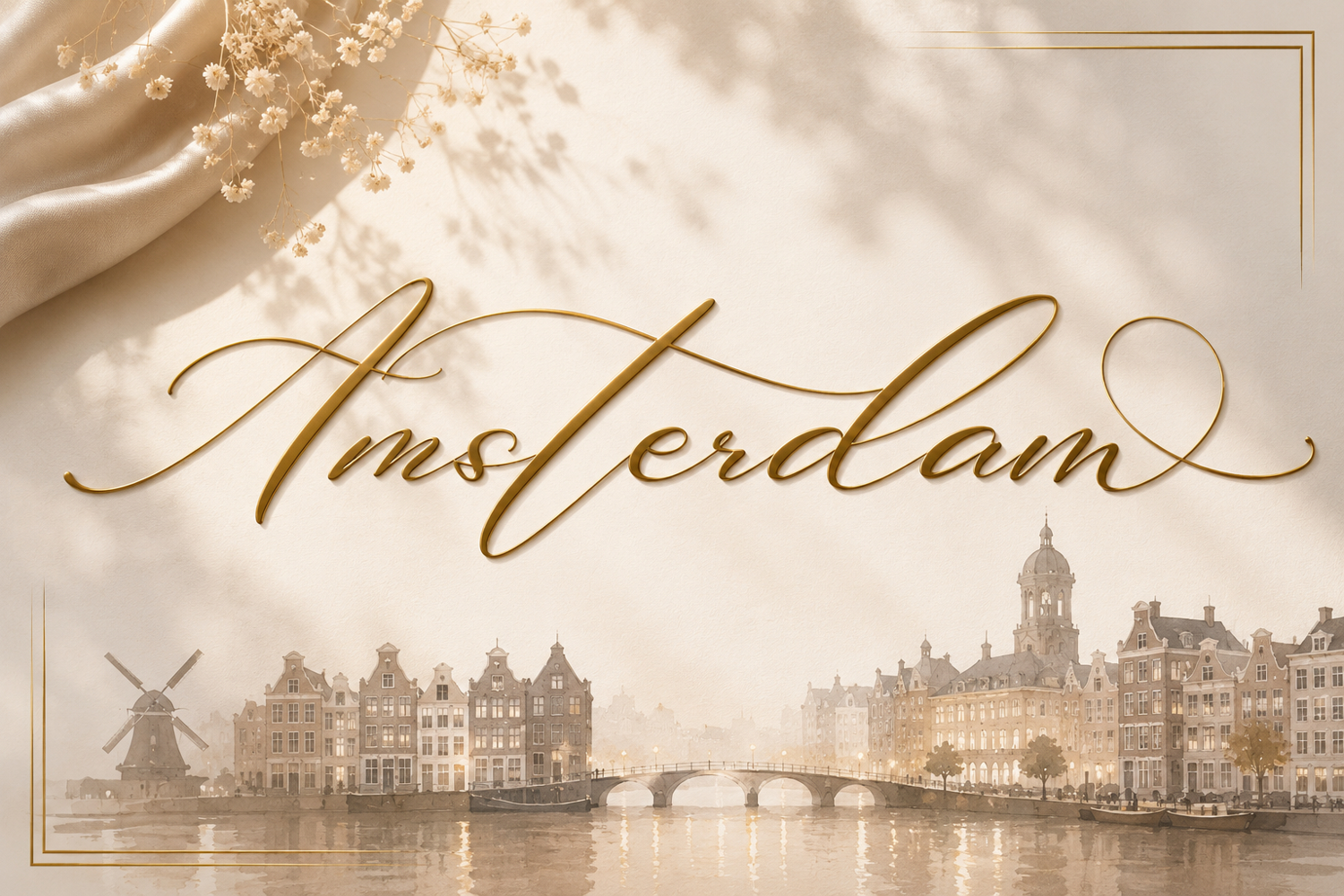
Amsterdam
Amsterdam is an exquisite handwritten font, masterfully designed to become a true favorite. It maintains its classy calligraphic influences while feeling contemporary and fresh. Fall in love with it and bring your projects to the highest levels!
Amsterdam